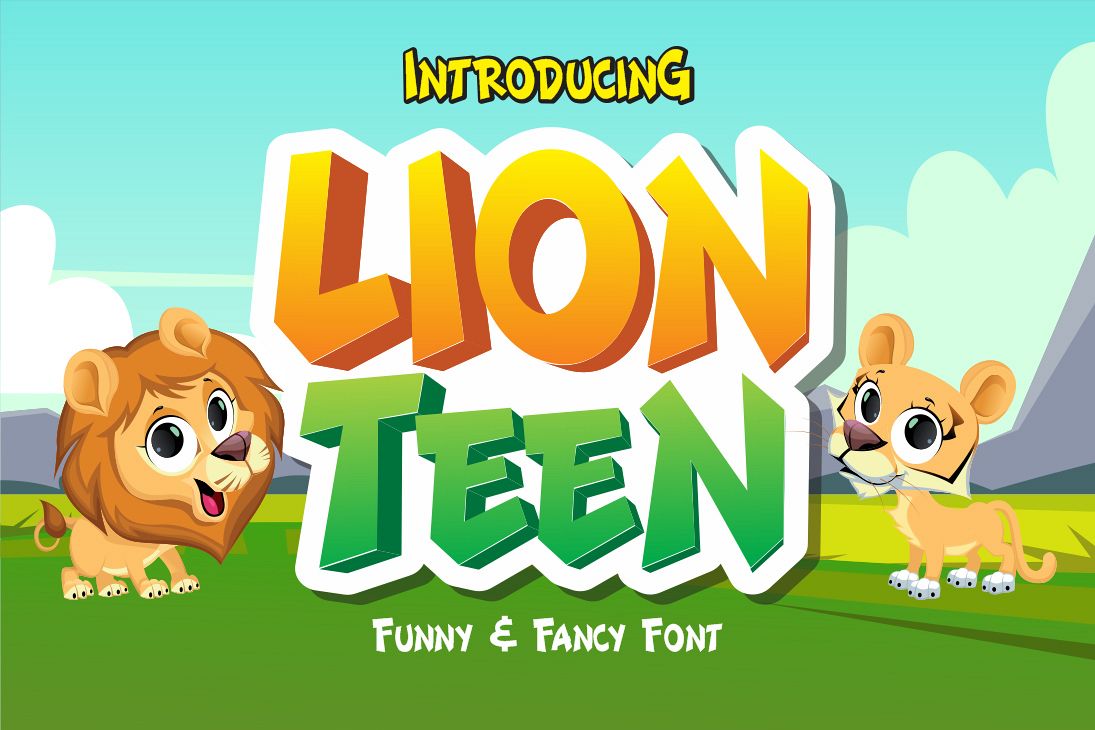
Lion Teen
The Lion Teen is an funny display font, It’s perfect for adding a cute and playful touch to your designs.
The unique characteristics make it suitable for quotes, cover book, logotype, badges, labels, packaging, t-shirt, or simply use it in your next design project.